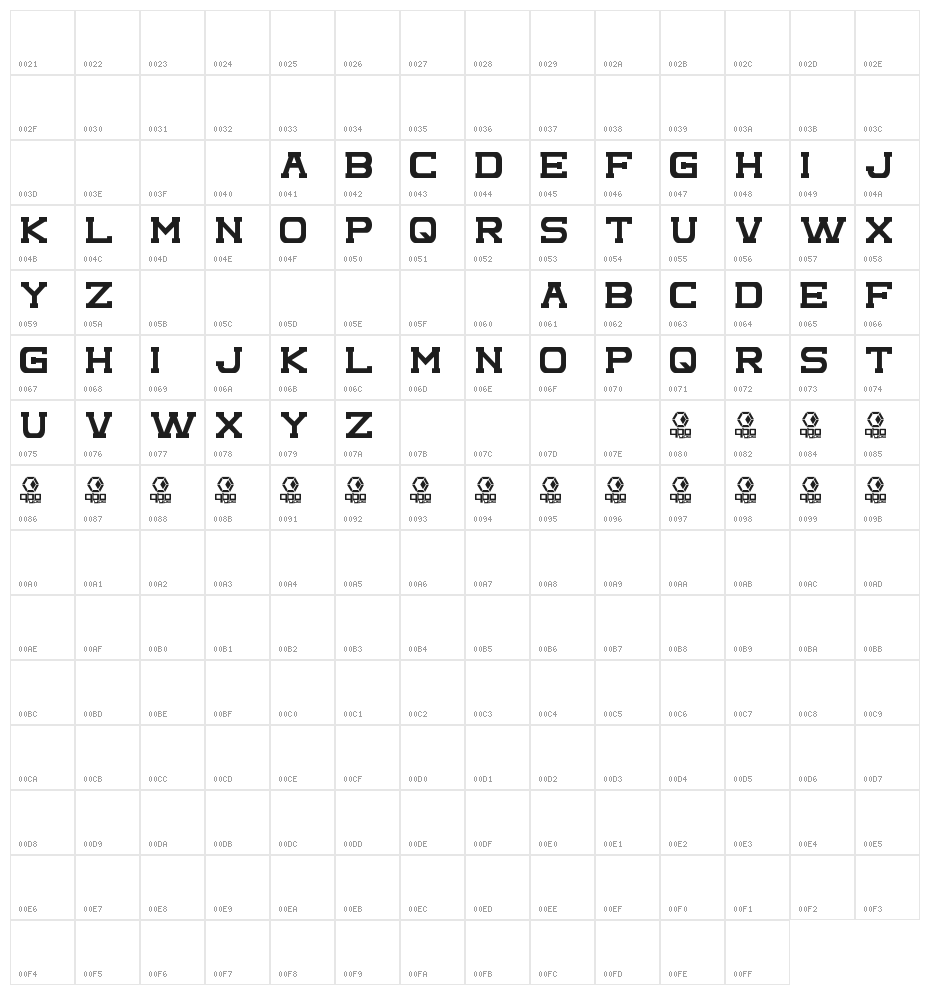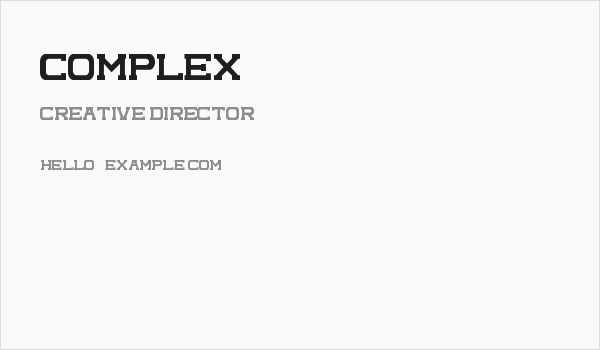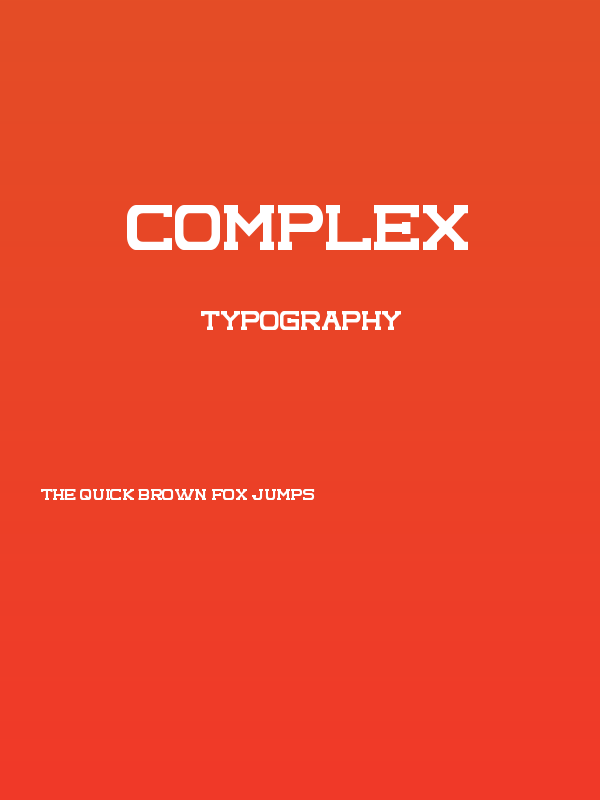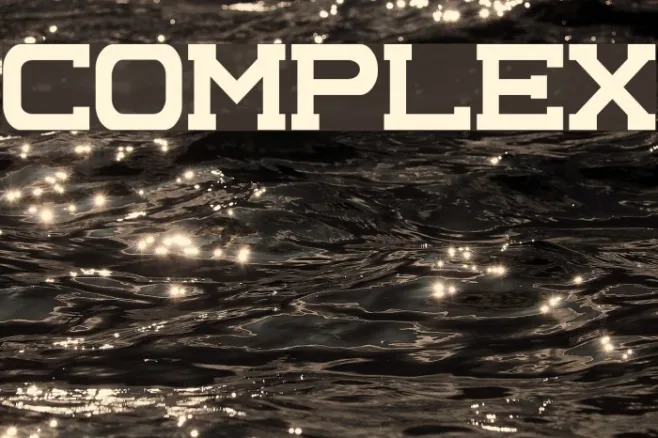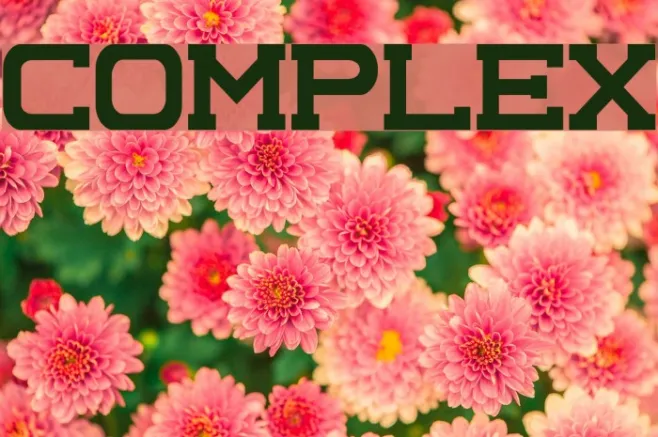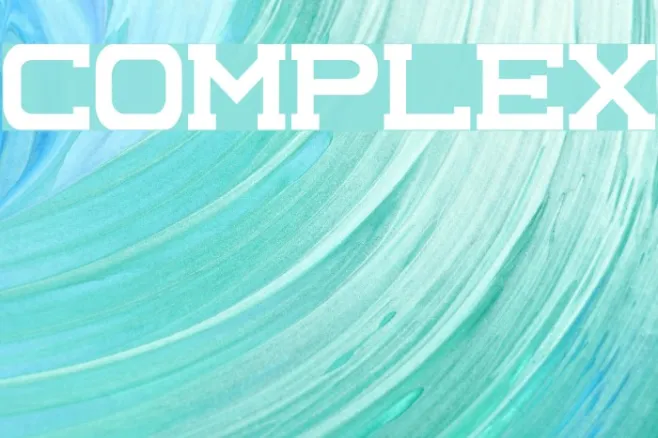
Complex Font
Complex Description
This font features a bold and structured design with strong geometric shapes and a modern aesthetic. The characters are uniform in width, providing a monospaced appearance that enhances readability and precision. The font's distinct style is characterized by sharp angles and clean lines, making it suitable for projects that require a contemporary and professional look. Its boldness ensures visibility and impact, making it ideal for headlines and titles. The consistent stroke width across all characters contributes to a cohesive and balanced appearance.
| Use Case | Headlines, Logos, Signage |
| Proposed Projects | Ideal for modern branding, technology-related projects, headlines, and signage. |